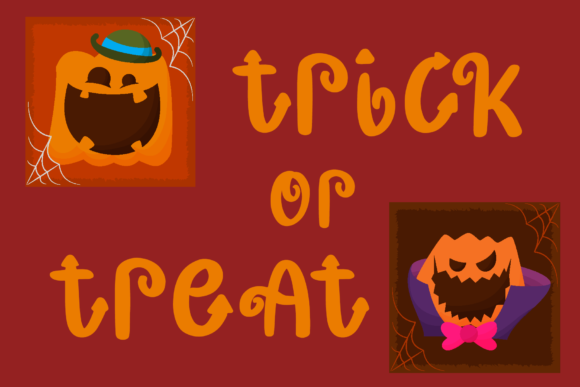
Curly Witch Font
db-ku.com - Script & Handwritten -- Curly Witch is a fun handwritten font suitable for your spooky Halloween cards, greeting cards, etc.